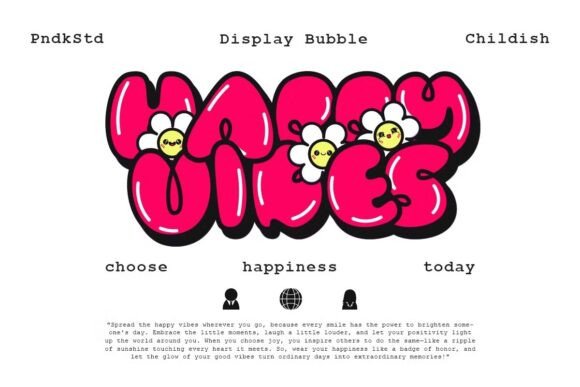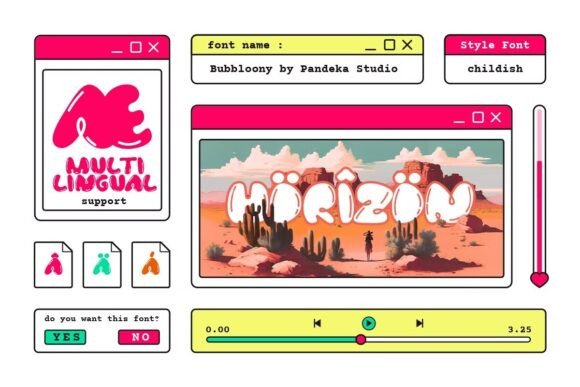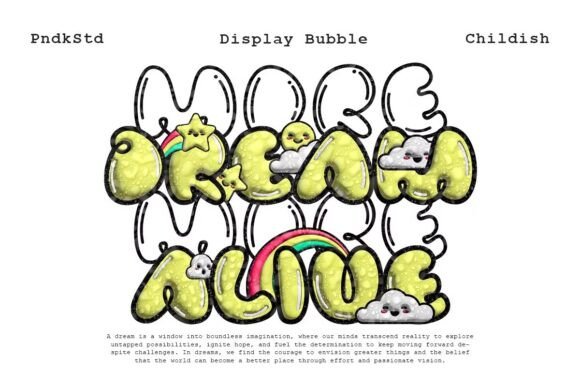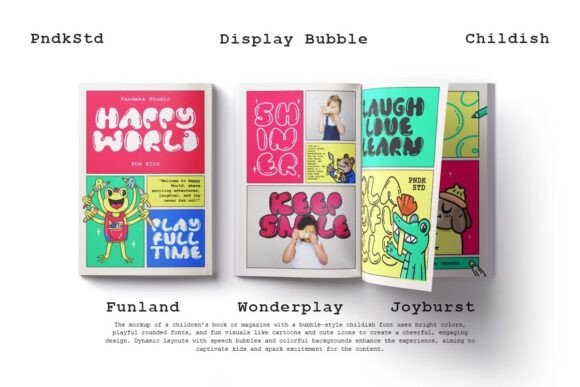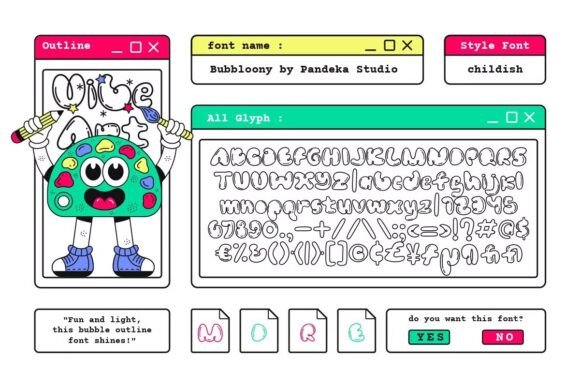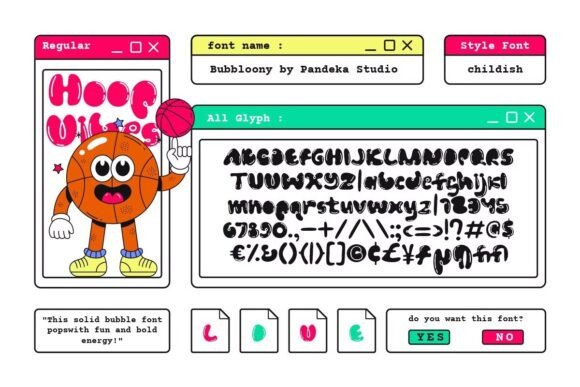
Adding a Pop of Personality to Your Designs
Remember the excitement of creating your first children’s book or designing a birthday party invitation for a loved one? The thrill of bringing a new idea to life and watching it unfold is what makes design so magical. It’s in these moments that we crave the perfect tool to bring our imagination to the forefront – and that’s exactly where the Bubbloony Font comes in.
This vibrant bubble font is designed to add a playful touch to your creative projects, from posters and social media graphics to logos and merchandise. With its rounded, bubbly characters, the Bubbloony Font is the perfect companion for designers looking to infuse their designs with joy and personality. Whether you’re working on a children’s theme, creative branding, or just want to add a pop of fun to your designs, this font is sure to become your new favorite tool.
Bubbloony Font Key Features
- Font Family: Bubbloony Font comes in a unique, playful font family with multiple weights and styles, including bold, italic, and regular.
- Character Set: Supports a wide range of characters, including Latin, Cyrillic, and Greek alphabets, as well as punctuation and special characters.
- Resolution: Optimized for high-resolution displays, including Retina and 4K screens, ensuring crisp and clear typography at any zoom level.
- Unique Characteristics: Bubbloony Font features a distinctive, bubbly design with rounded edges and irregular shapes, adding a touch of whimsy and playfulness to any design.
Bubbloony Font Review
I recently had the chance to work with the Bubbloony Font, and I must say it’s a unique addition to any design project. ✨ The font’s playful and whimsical nature makes it perfect for creating eye-catching headings and titles. The subtle rounded edges and bubbly curves give it a friendly and approachable feel that’s sure to engage your audience.
One of the things I appreciate about Bubbloony is its flexibility. It comes in a variety of weights, from light to bold, allowing you to create a range of visual effects and moods. The font also supports both serif and sans-serif styles, making it easy to mix and match with other fonts in your design.
- Playful and whimsical nature ✨
- Flexible with various weights and styles ✨
- Easily readable in both digital and print formats ✨
- May not be suitable for formal or corporate designs ⚠️
- Can be overwhelming in large blocks of text ⚠️
- Lack of supporting fonts for extended text ⚠️
Overall, I think Bubbloony Font is a great choice for designers looking to add some personality to their work. While it may have some limitations, its unique charm and flexibility make it a valuable addition to any design toolkit.
Bubbloony Font is perfect for:
- Creating playful and eye-catching headings.
- Designing whimsical and creative typography.
- Adding a touch of fun and personality to your designs.
Bubbloony Font is a fun and playful sans-serif font, but it may not be suitable for all designs. Here are some alternatives that can add a similar touch to your designs.
Great Vibes is a modern, elegant font that can be used for a wide range of designs, from logos to headings. It has a similar playful feel to Bubbloony Font, but with a more refined and sophisticated look. Use Great Vibes when you want to add a touch of whimsy to your design without going over the top.
What font sizes and styles are available in Bubbloony Font?
The Bubbloony Font family includes multiple weights and styles, ranging from Light to Extra Bold. It also features a range of font sizes, from 8 to 72 points, making it suitable for various design applications, including print, digital, and web design. You can adjust the font size and style to suit your specific design needs.